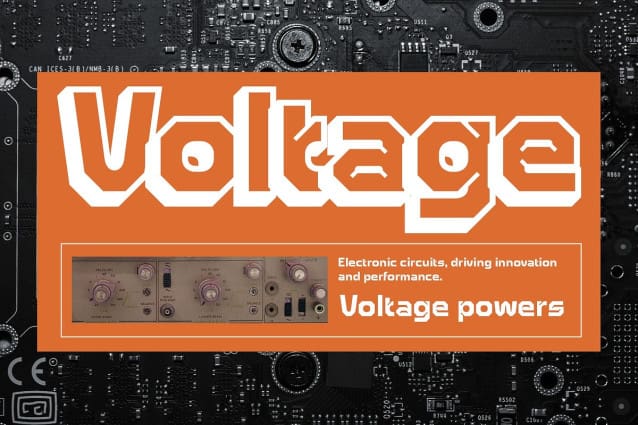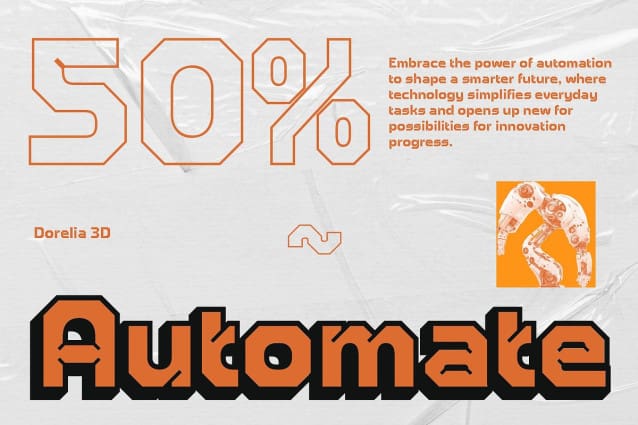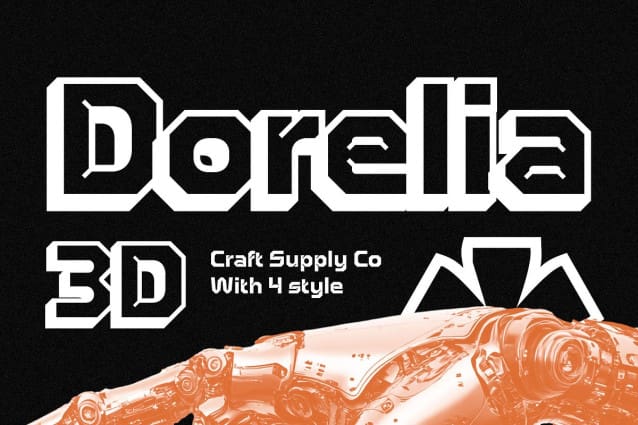
Dorelia 3D Font
Dorelia 3D Font is a modern display font that brings bold weight and a distinctive industrial, tech-inspired aesthetic to your designs. Its inktrap shapes and sharp, clean lines add a sense of innovation and sophistication, making it the perfect choice for projects that aim to capture a futuristic and professional look. The bold structure ensures visibility and impact, even in busy design layouts.
Enhanced with a Striking 3D Effect What sets Dorelia 3D apart is its mesmerizing 3D effect, which adds depth and dimensionality to your text. This effect creates a strong visual presence that brings designs to life, making it ideal for creating dynamic and engaging headlines, standout logos, or attention-grabbing posters. The layered look introduces a sense of movement and energy, enhancing its appeal for creative and contemporary projects.
Perfect for Futuristic and Tech Branding Seamlessly blending modern technology with industrial strength, Dorelia 3D is the ultimate choice for tech branding and futuristic designs. Its bold, innovative aesthetic conveys confidence, power, and sophistication, making it particularly suitable for digital platforms, tech products, and futuristic visual narratives. Whether for digital interfaces or printed materials, this font adapts effortlessly to various creative needs.